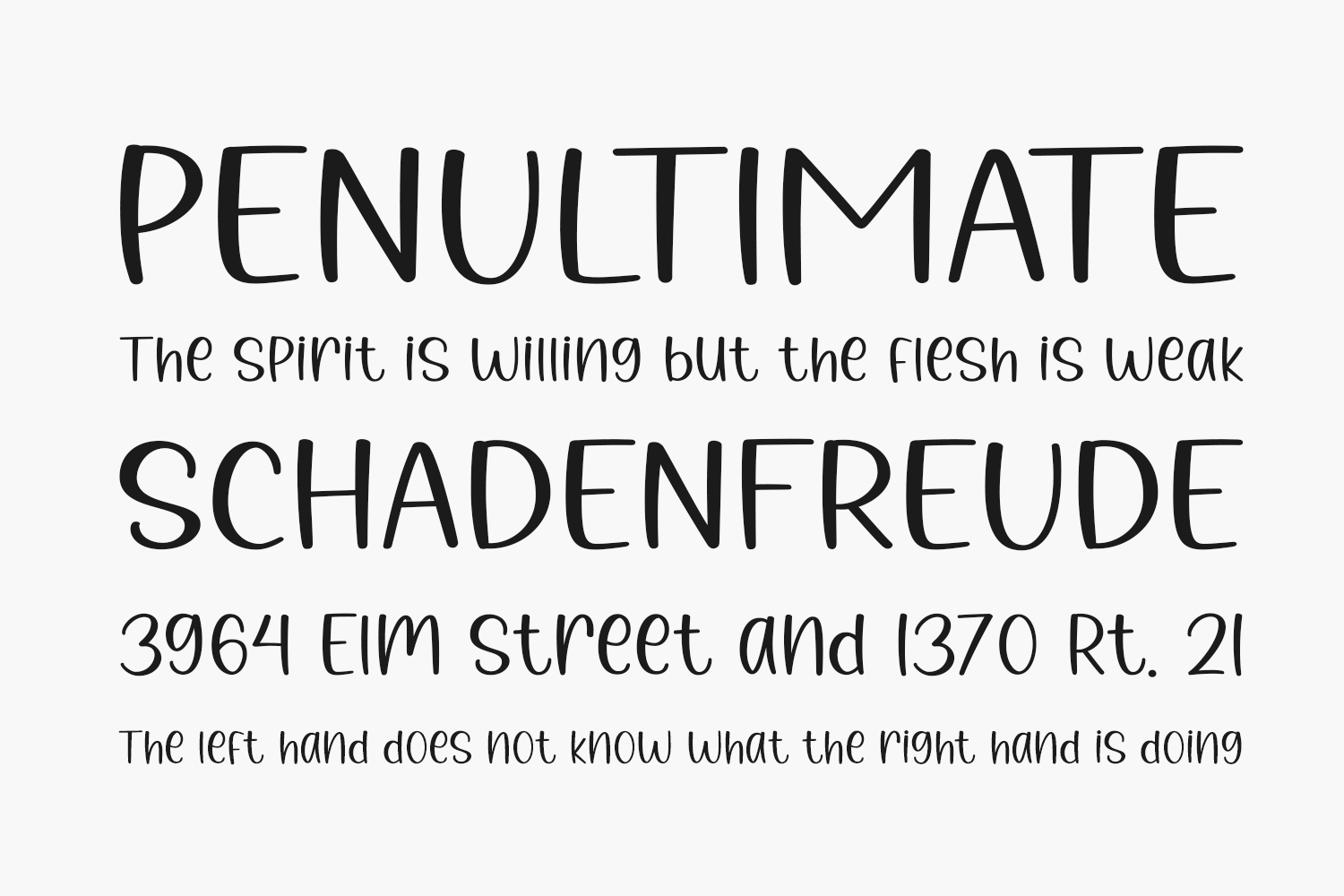
The Rabbit Free Font is an exquisite handwritten font with a touch of simplicity. This font is tailor-made for those seeking to craft captivating chalkboard quotes and educational materials. With its genuine appearance, it effortlessly infuses your designs with a personal and lifelike vibe. Get ready to elevate your creations with The Rabbit Free Font. The Rabbit Free Font is free for personal use only. Please purchase the full version for commercial use.